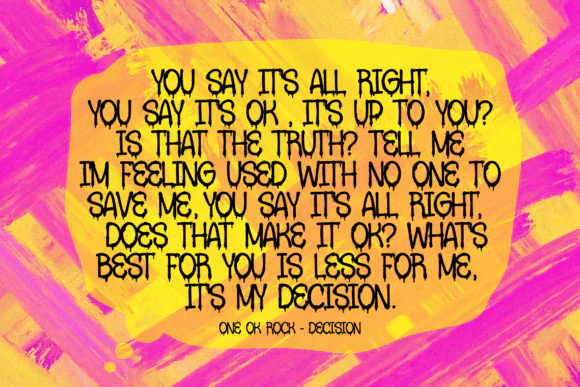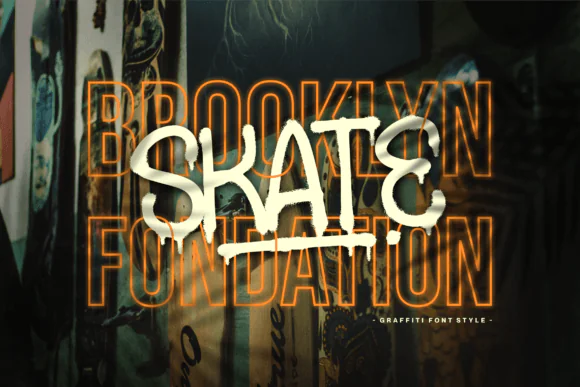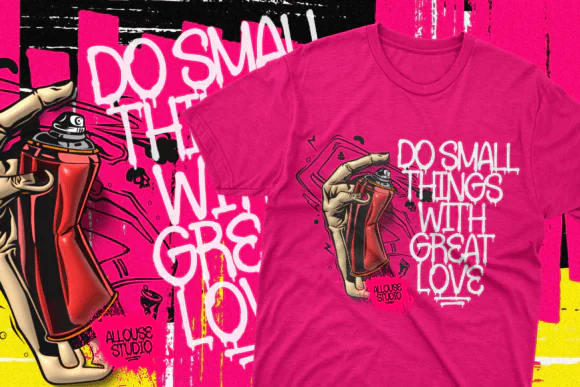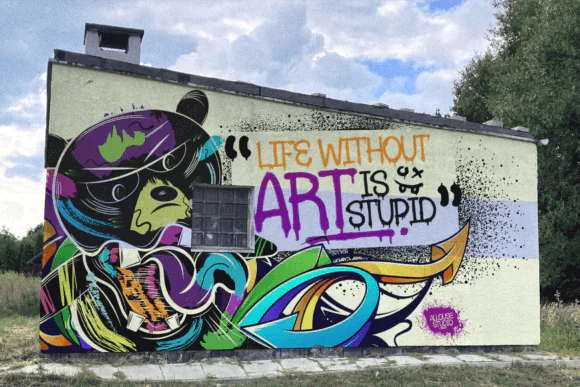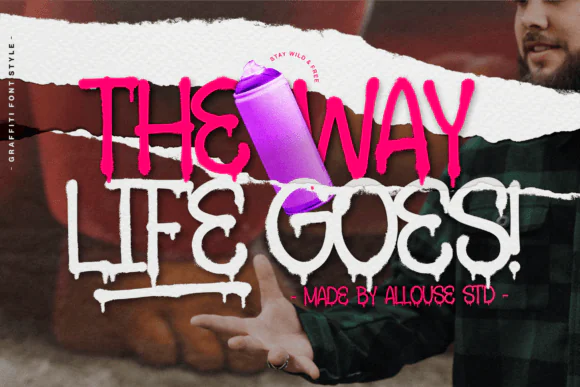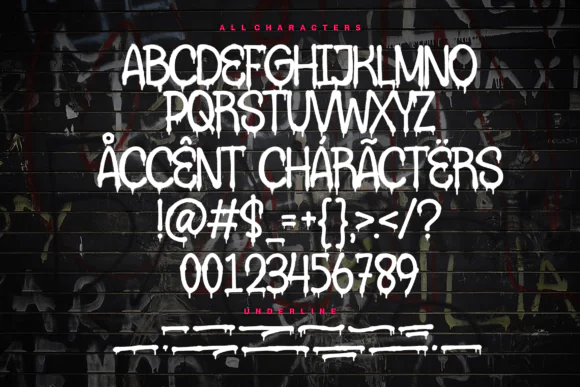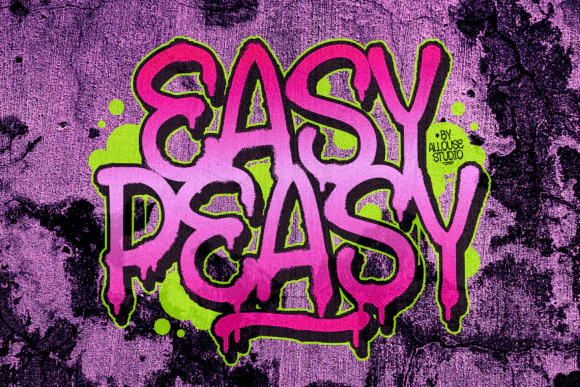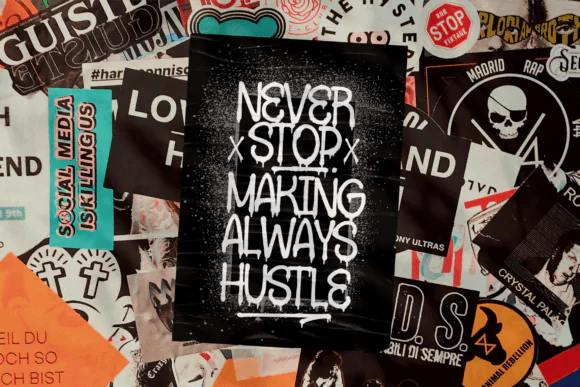
Create bold, expressive, and street-inspired designs with Urbandrips Font, a graffiti display typeface made for projects that need attitude, energy, and urban character. With its graffiti-style lettering and drip-inspired visual personality, this font is perfect for designers who want to make their text stand out with a raw and creative street-art look.
Urbandrips works beautifully for product packaging, branding projects, magazine layouts, social media graphics, posters, apparel designs, stickers, album covers, digital artwork, and expressive typography. Its bold display style makes it ideal for headlines, logo concepts, promotional visuals, and any design where the words need to become the main visual focus.
Whether you are creating streetwear branding, edgy product labels, social media quote graphics, event flyers, or modern urban posters, Urbandrips adds a confident graffiti touch that feels stylish, creative, and eye-catching.